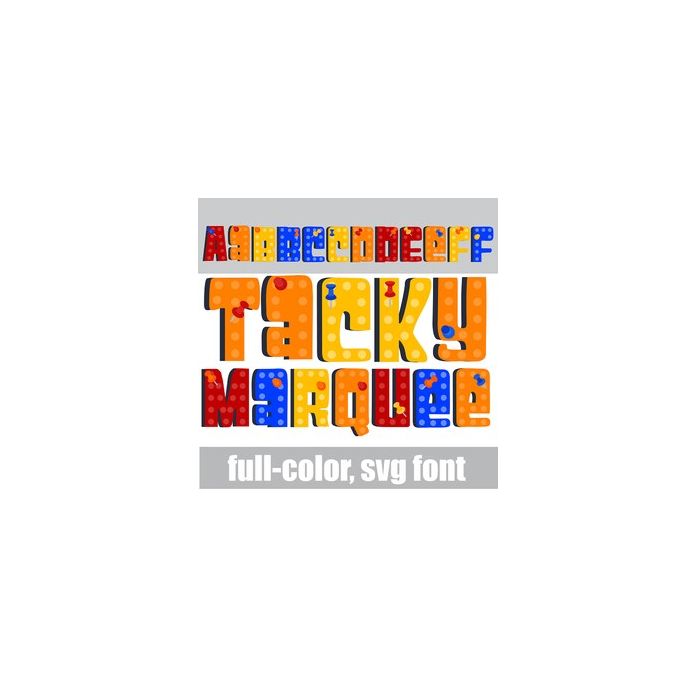
This full-color font features a marquee style lettering in primary colors with thumbtacks throughout. There is an alt case w/ additional colors you can access through your system or Silhouette's glyph map.